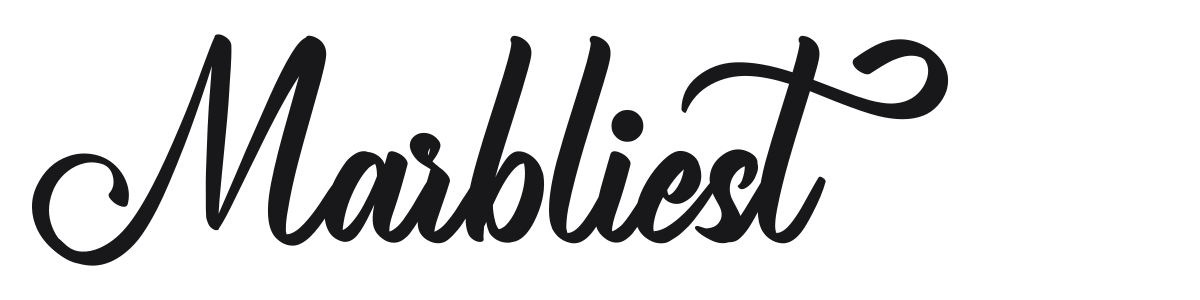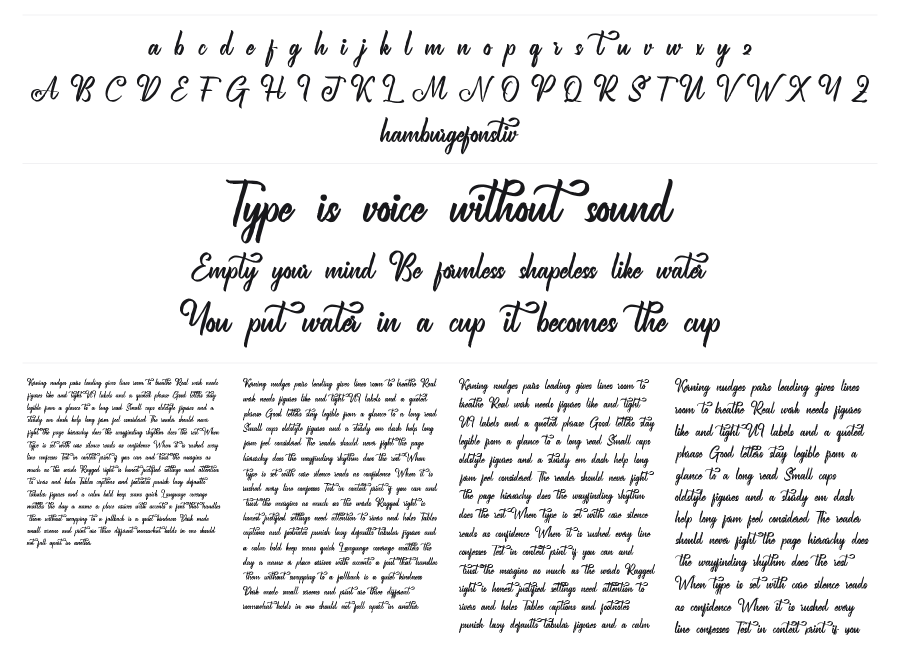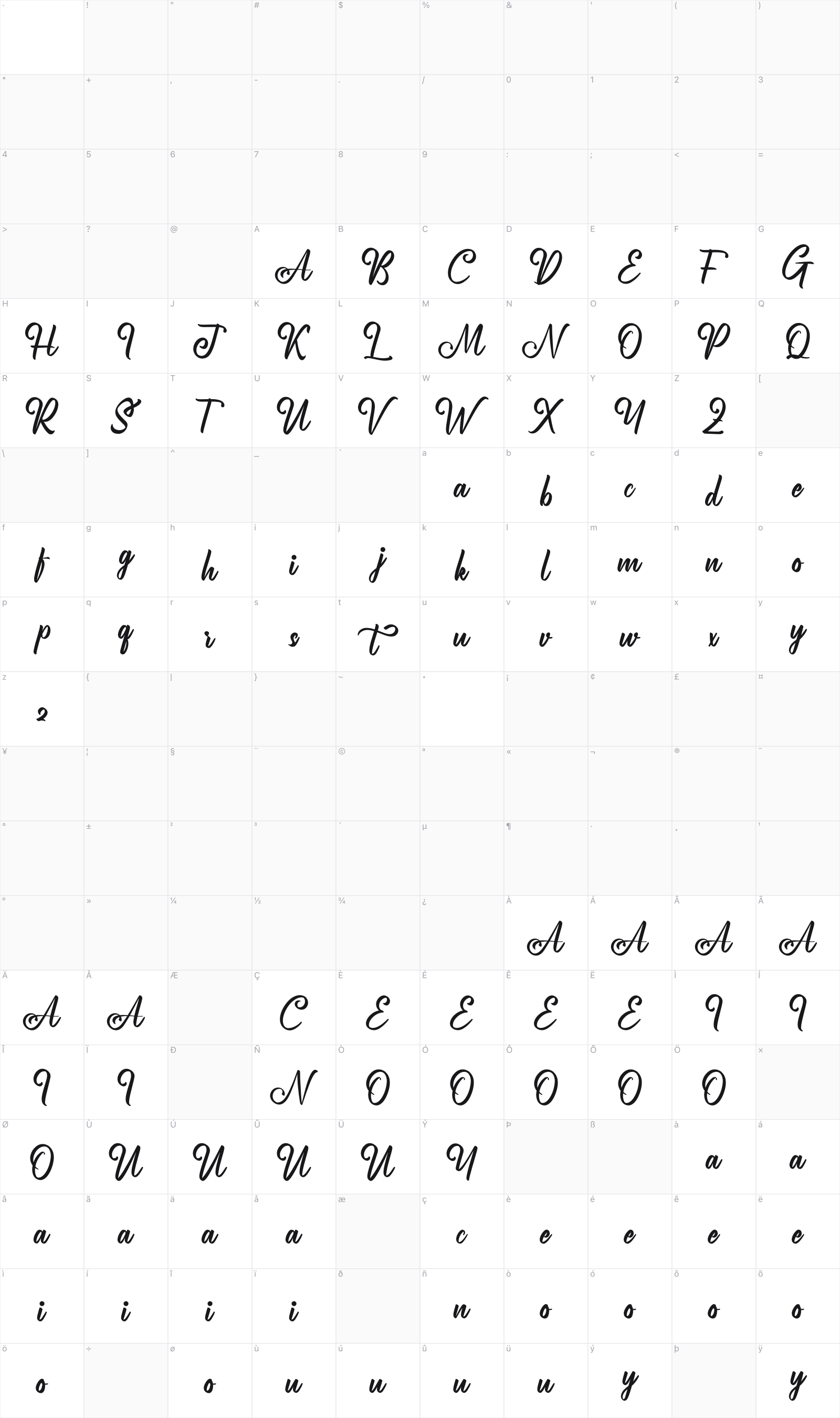
Marbliest
Marbliest is a bold casual brush script with the loose, confident energy of hand-lettering done in a single pass. Thick downstrokes and fine hairline upstrokes create lively stroke contrast, while expressive swash details on certain characters add charm without tipping into fussiness. It carries well on packaging, logotypes, and any headline that needs a human touch.